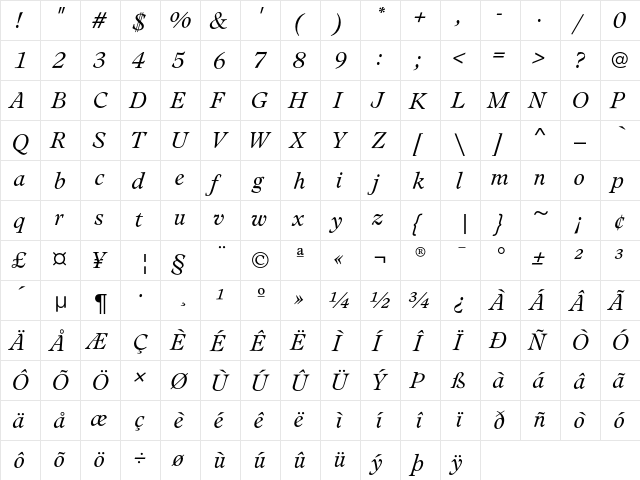
LeamingtonEF LightItalic
Design Context for LeamingtonEF Typeface
LeamingtonEF is a composed and adaptable typeface that performs quietly and consistently across a wide range of design contexts. The dynamic lean of this cut emphasises speed and emphasis in any layout. Its slender proportions lend an understated elegance to any composition.
Pro Tip: Use LeamingtonEF for emphasis, pull quotes, and subheadings where its slanted energy can add rhythm to the layout.